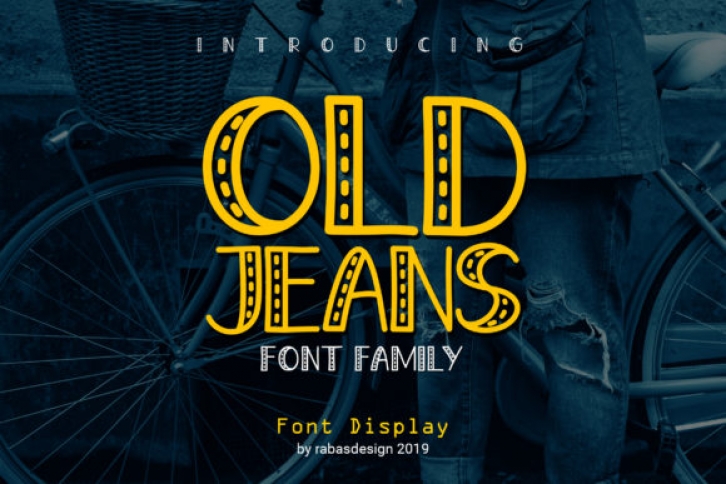
The Old Jeans is an unique family font, inspired by stitching on jeans. The display font has characteristics that are easy to remember, which makes it perfect for any design which needs to stand out!